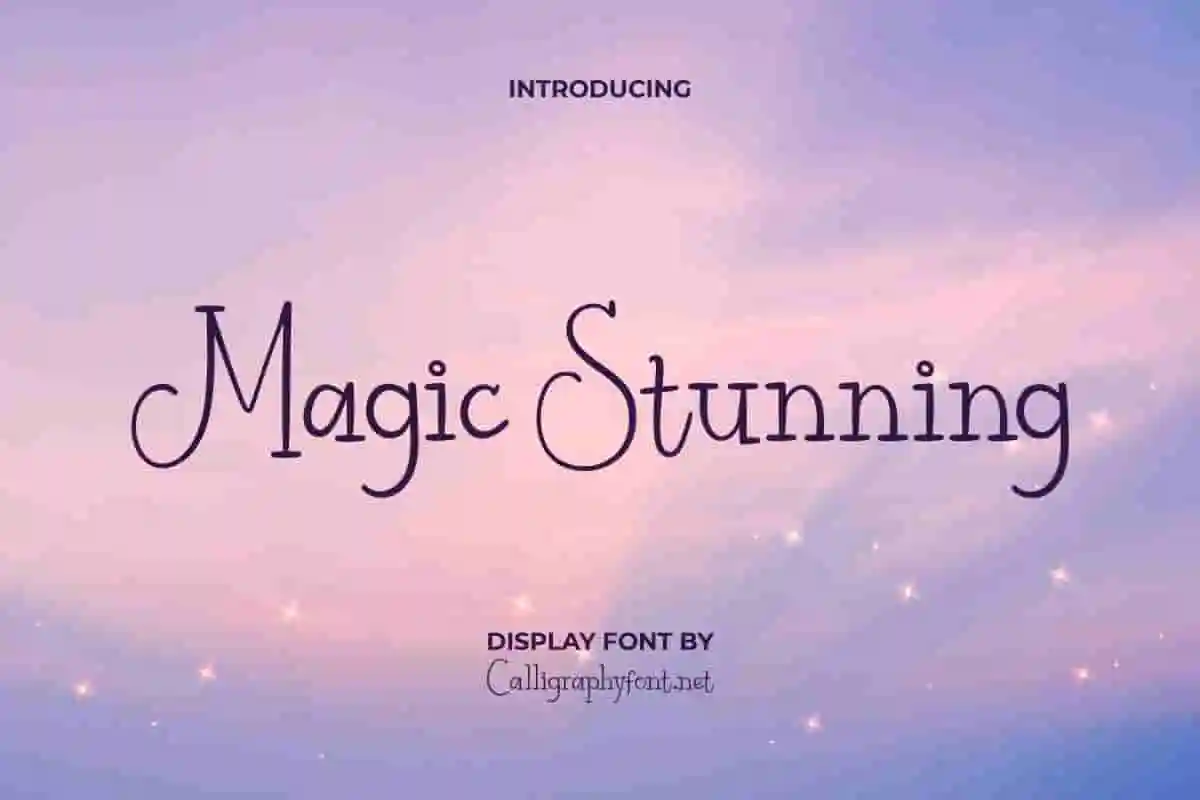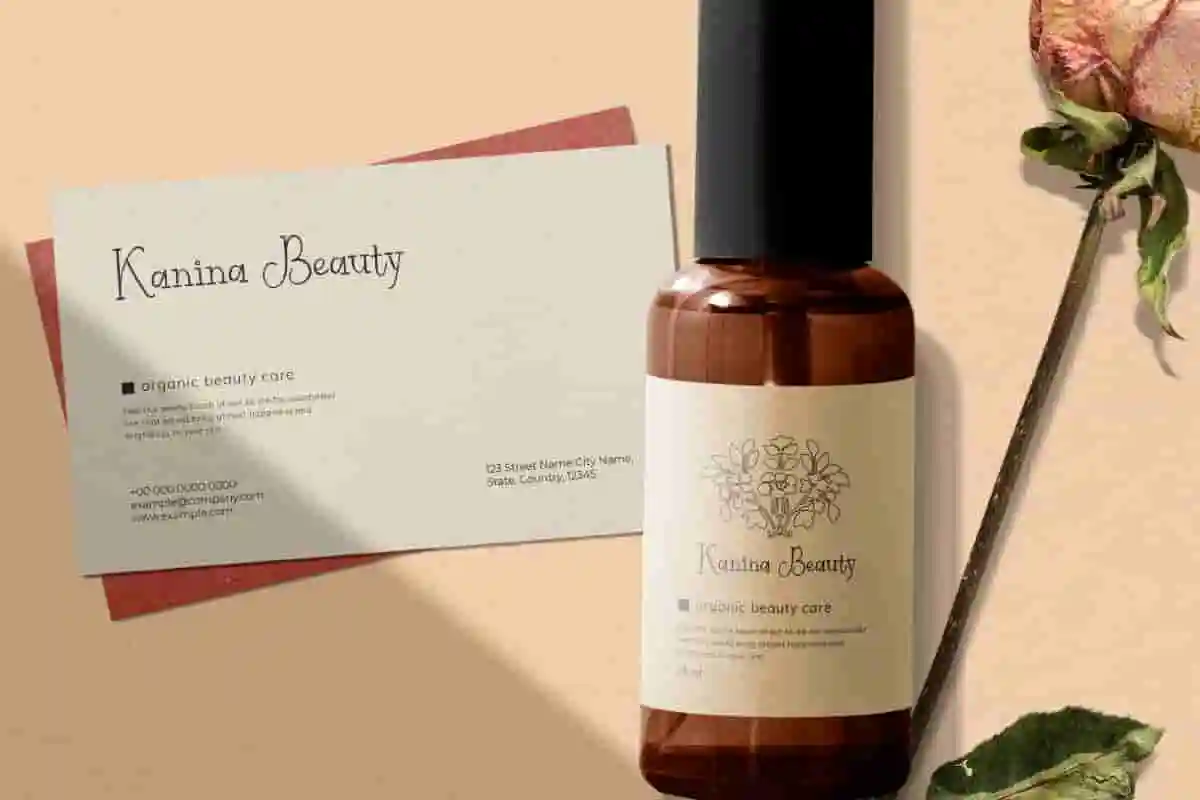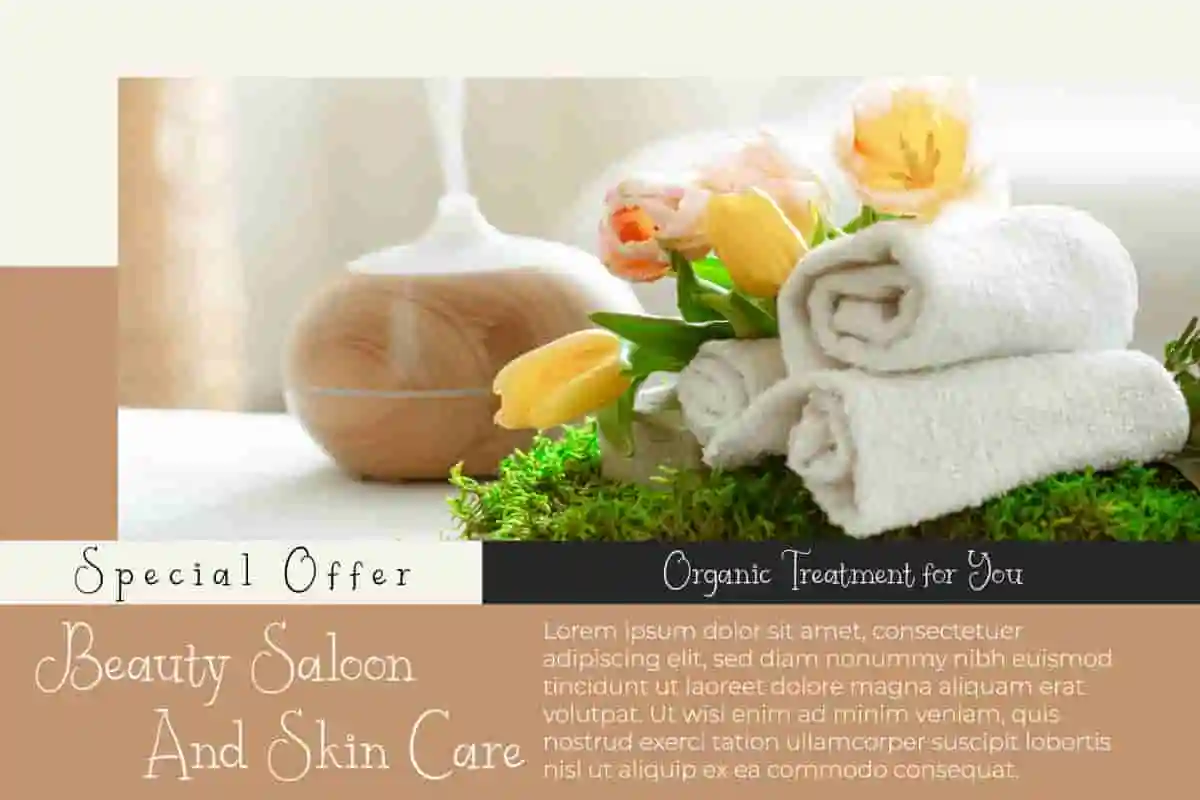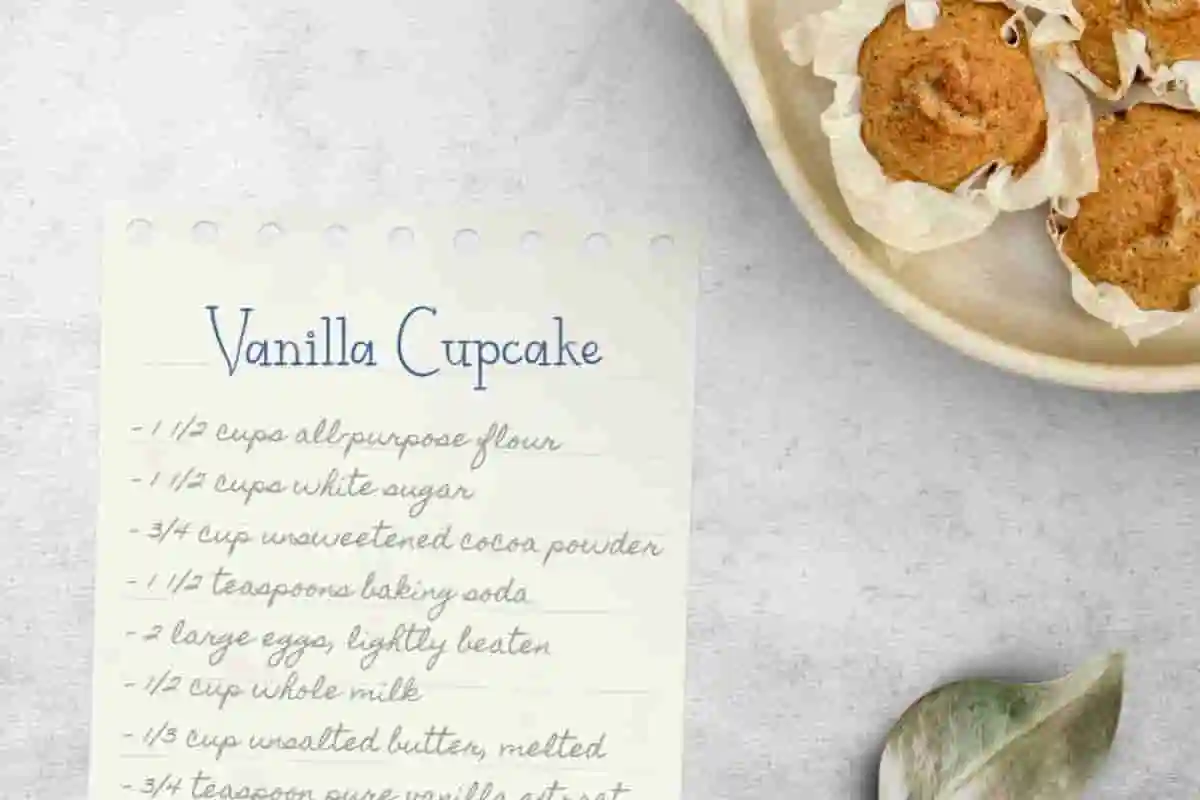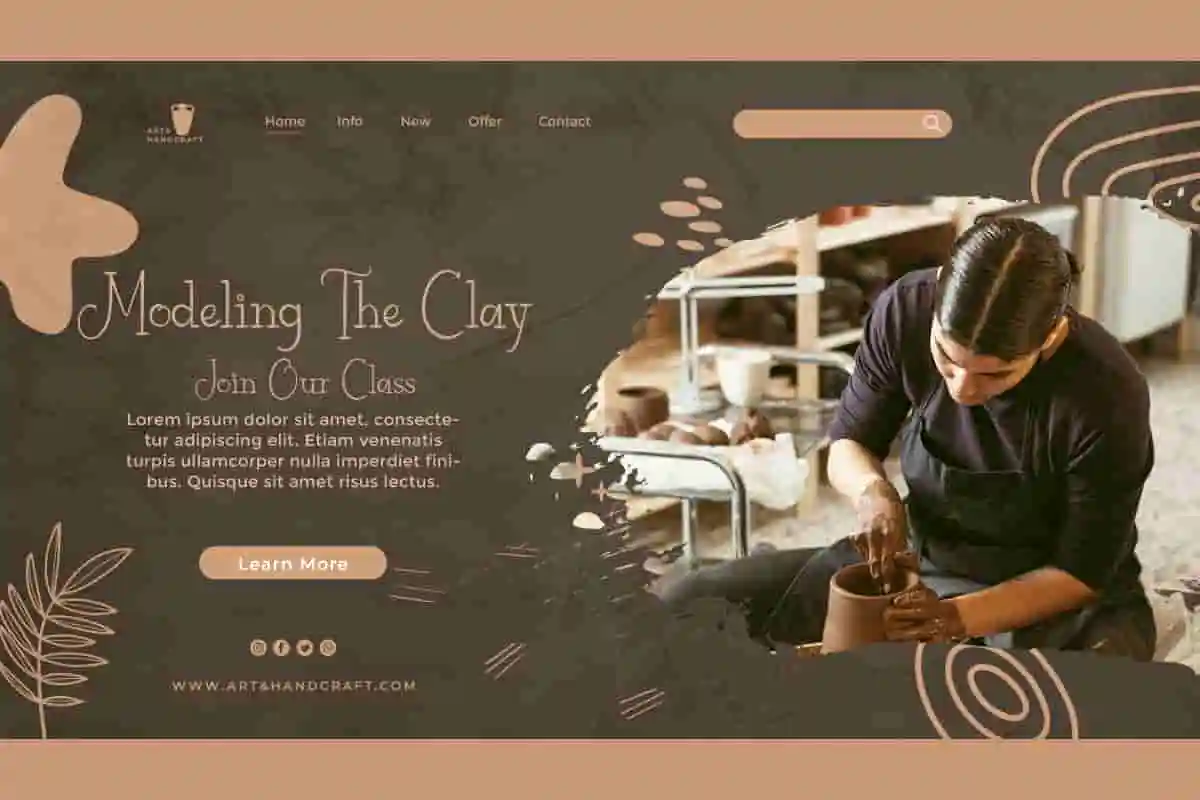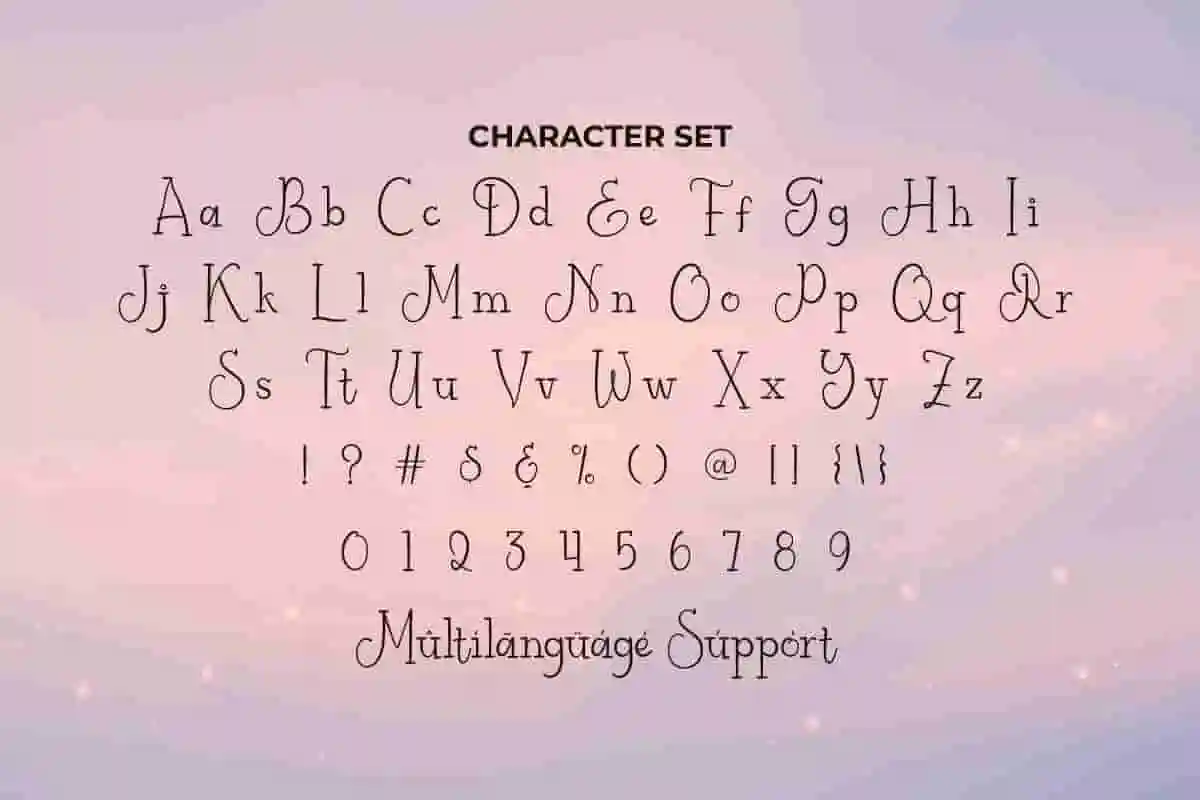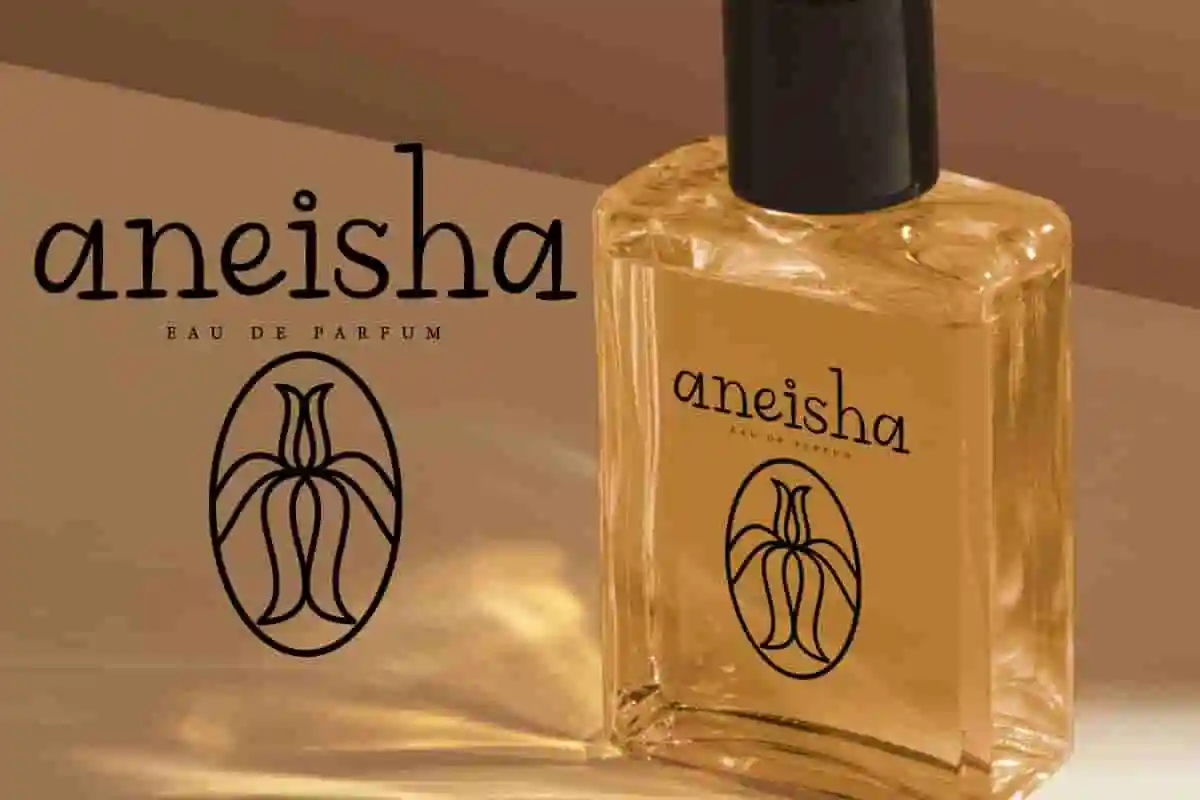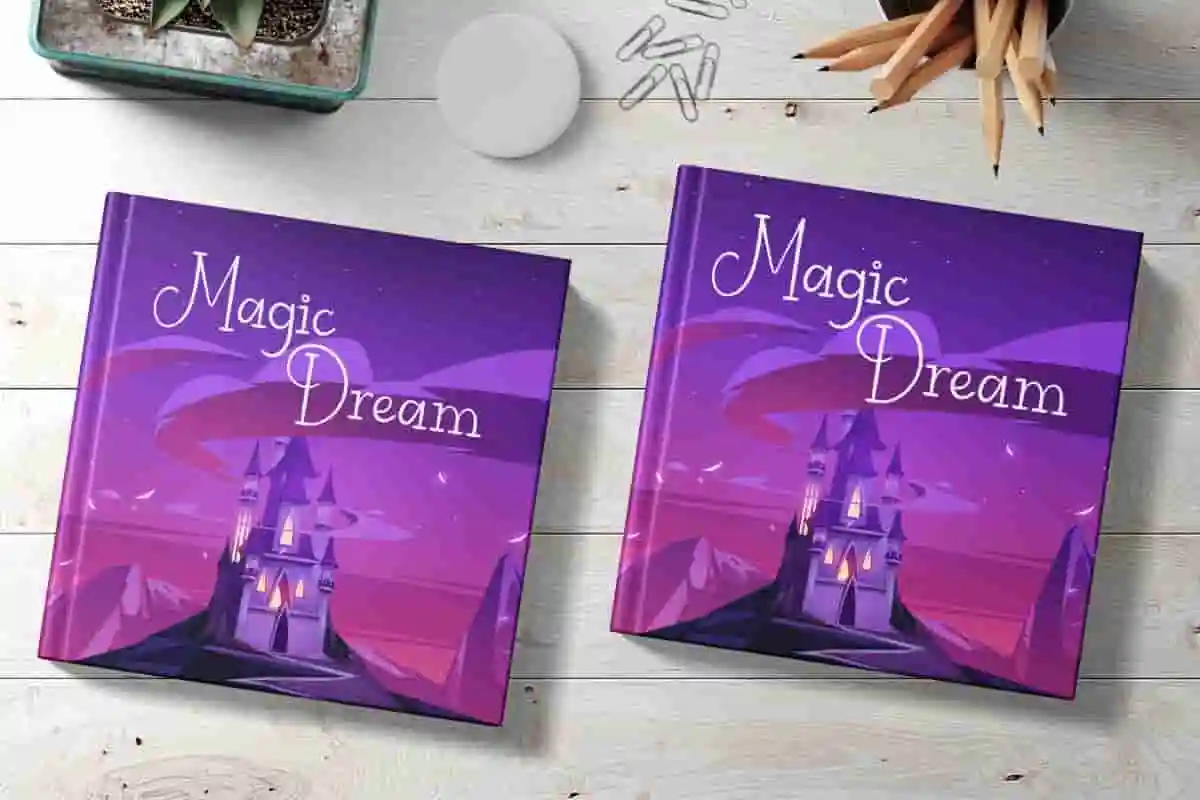
Magic Stunning Display Font
Magic Stunning Font is a cute modern display font with a magical charm. Exclusively created to perfect your design!
Magic Stunning Font is a cute modern display font with a magical charm. Exclusively created to perfect your design! The font has a modern display style with an enchanting feels. The appearance of this font is so magical and can bewitch your heart to use it immediately to any creative project, such as apps, brand identity, brochure, card, cover, flyer, header, invitation, label, mock up design, packaging, photo card, poster, quote, social media post, stationery, sticker, thank you card, title, website, and anything else that would look stunning with this font!
Unveil the extraordinary with Magic Stunning Display Font – a bold and enchanting display typeface designed to bring magic, mystery, and bold character to your creative work. Whether you’re designing fantasy-themed posters, event titles, logo branding, or book covers, this font instantly creates a captivating visual presence.
Step into a world of enchantment with Magic Stunning Display Font, a bold and stylish display typeface crafted to captivate and inspire. With dramatic curves and mystical energy in every letter, this font transforms ordinary text into magical statements that grab attention and spark imagination. Perfect for fantasy books, event posters, product packaging, mystical branding, and themed social media content, Magic Stunning is your go-to font when you want something powerful, elegant, and unforgettable.
Awaken your designs with Magic Stunning Display Font, a bold and spellbinding display font that merges elegance with fantasy. Every letter is carefully shaped to command attention, making it the ideal choice for projects that need drama, mystery, and unforgettable style. Whether you’re designing a fantasy novel cover, movie title, event branding, or magical merchandise, Magic Stunning brings a sense of power and wonder to every word.
- Perfect for Fantasy & Bold Themes
Magic Stunning Font is a simple display font that has its own charm that will stand out in any industry, such as accessories, advertisement, bakery, café, cinema, comic book, content creator, crafting, entertainment, event organizer, fashion, graphic design, handicraft, homeware, interior design, movie, printing, publishing, writer, and many more!